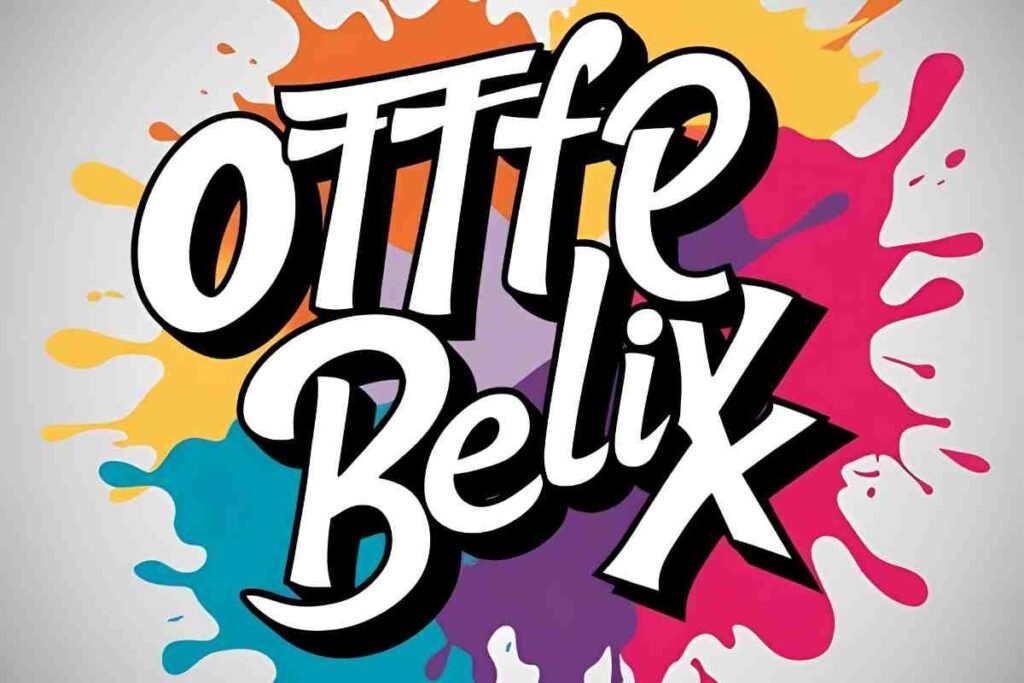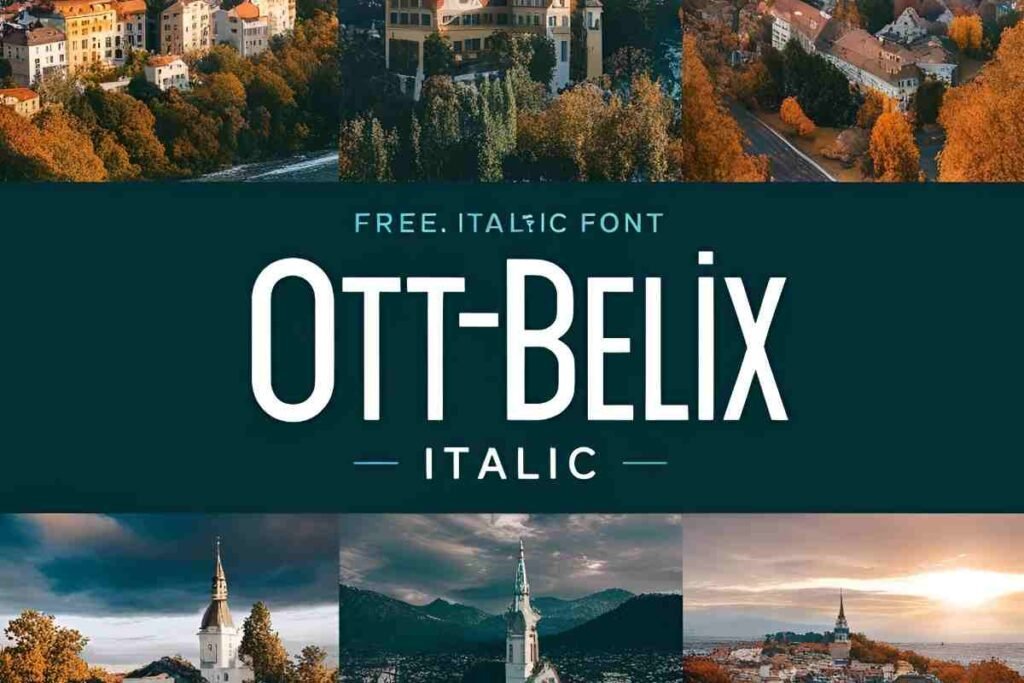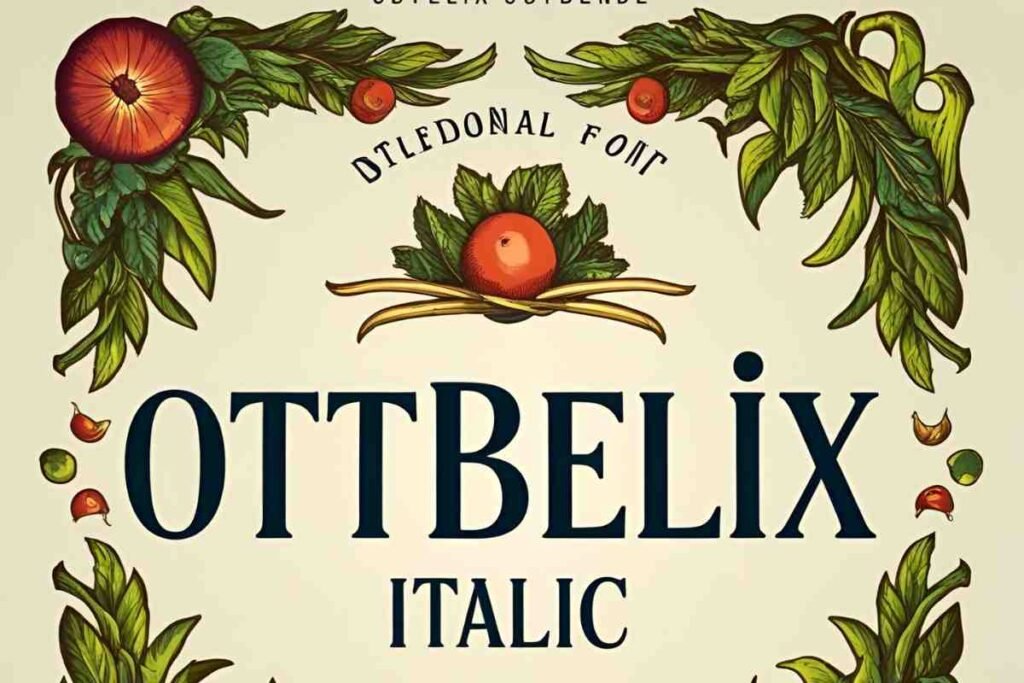
When it comes to high-quality, stylish fonts for creative projects, Ottbelix Italic Font Free stands out as a top choice for designers. Renowned for its graceful and sophisticated style, this font masterfully blends modern elegance with the timeless charm of classic serif design.
Its delicate slant and sharp details make it a versatile option for a wide array of design applications. Whether you’re crafting a stunning logo, designing elegant invitations, or building a sleek website, Ottbelix italic font free brings a refined, polished look that effortlessly elevates any project.
What Makes Ottbelix Italic Font Unique?
The Ottbelix italic font free is a standout choice, thanks to its smooth, flowing design that seamlessly combines both legibility and style. The elegant slant of the font adds a touch of sophistication, while the contemporary nuances bring a fresh, modern edge.
Its careful balance of classic elegance and modern appeal makes it an incredibly versatile typeface for a variety of creative projects. The distinctive curvature of each letter creates an aura of refinement, yet it remains highly readable even at smaller sizes.
This makes Ottbelix Italic an ideal font for a wide range of applications, from formal invitations and professional branding to creative marketing materials. Whether you’re aiming for timeless elegance or a cutting-edge look,Ottbelix italic font free delivers the perfect balance of form and function.
Why is Ottbelix a Popular Choice for Designers?
Designers gravitate toward Ottbelix italic font because of its balance between elegance and functionality. The font’s clean lines and sophisticated style make it ideal for projects that require a formal yet modern touch. Its ability to convey professionaDesigners are drawn to the Ottbelix Italic Font for its perfect balance between elegance and practicality.
With its clean, precise lines and refined style, it strikes an ideal harmony between formality and modernity, making it perfect for projects that demand both sophistication and approachability. The font’s ability to convey professionalism without feeling overly ornate is one of the key reasons it has become a favorite among designers.
Whether you’re working on personal or commercial projects, Ottbelix Italic stands out for its versatility, seamlessly adapting to a wide range of design needs. Its timeless appeal ensures it works beautifully across everything from high-end branding and corporate materials to more casual, creative designs.
Offering a polished touch without compromising on style or readability.lism without being overly complex is one of the main reasons why it’s so widely used in the design community. Whether for personal or commercial projects, Ottbelix’s versatile nature allows it to be adapted to various types of work.
Uses of Ottbelix Italic Font
The Ottbelix Italic Font Free is a highly versatile typeface that seamlessly adapts to a wide array of design projects. With its graceful, refined appearance, it strikes the perfect balance between sophistication and approachability, making it an exceptional choice for both formal and casual uses.
What makes Ottbelix Italic unique?
The Ottbelix italic font stands out for its elegant and flowing design, offering a sophisticated touch while maintaining readability.